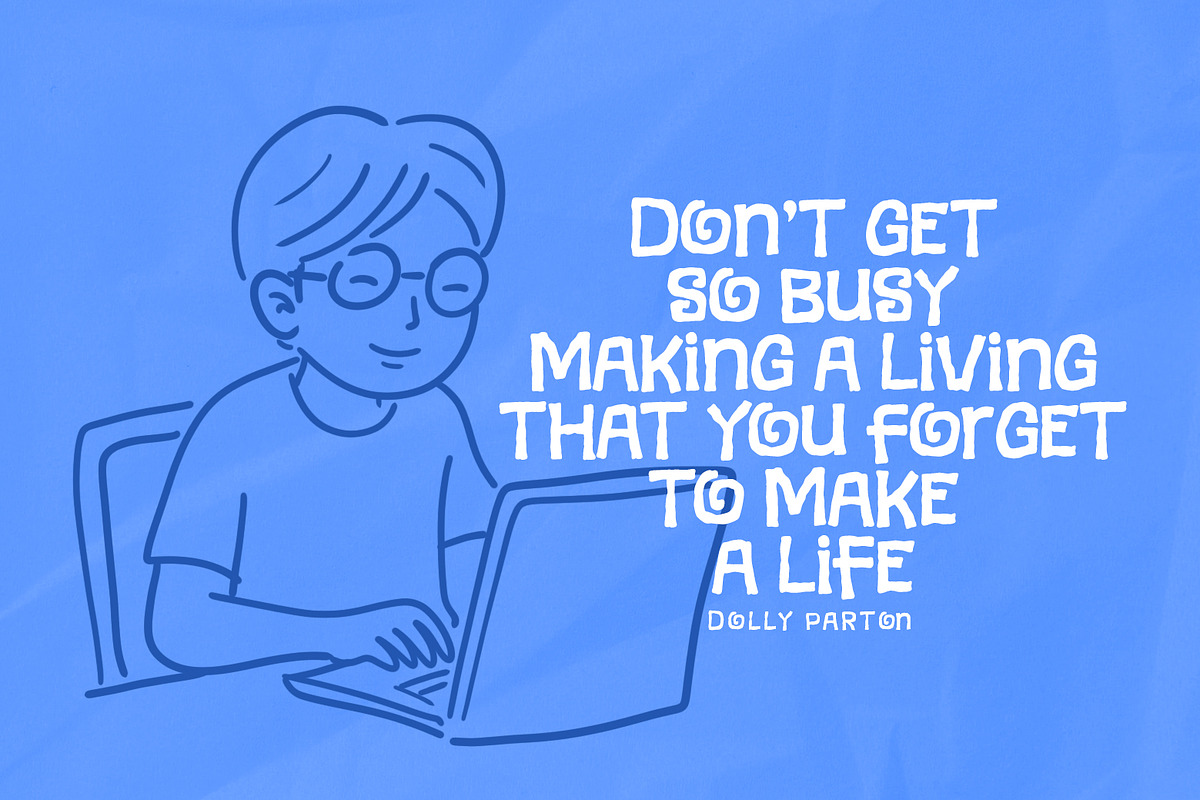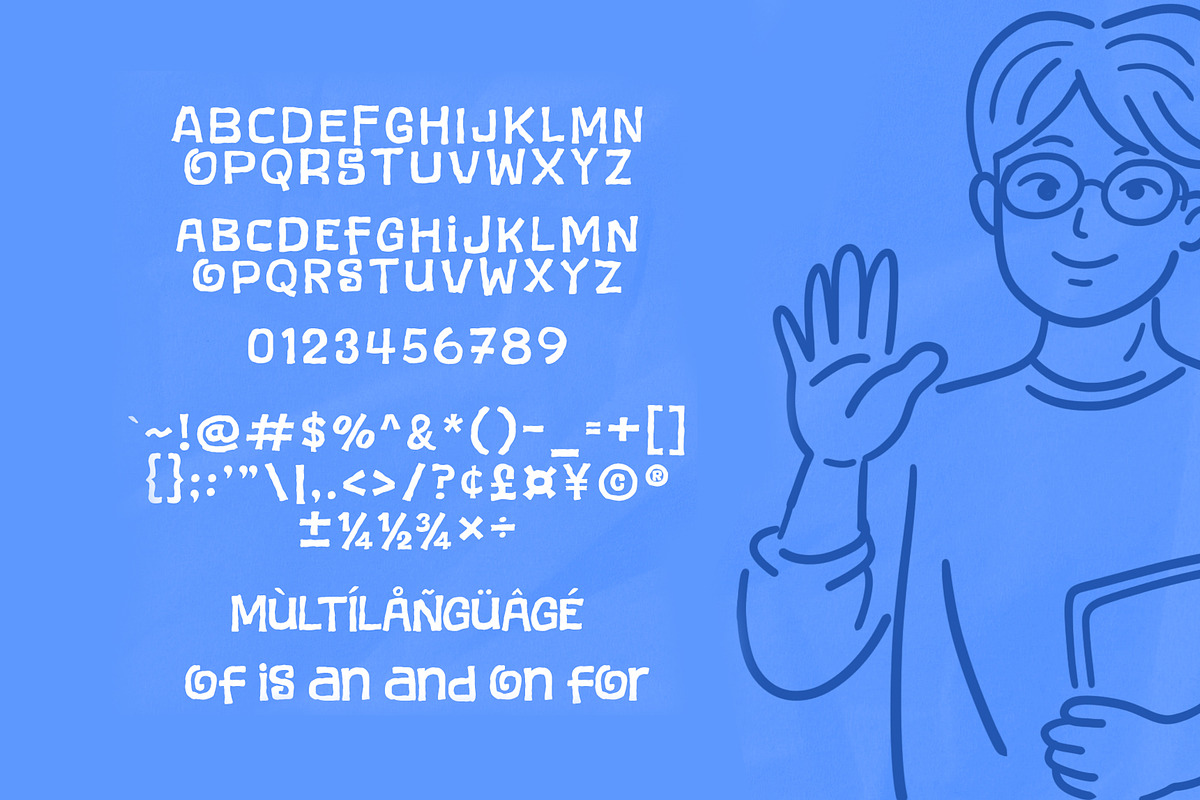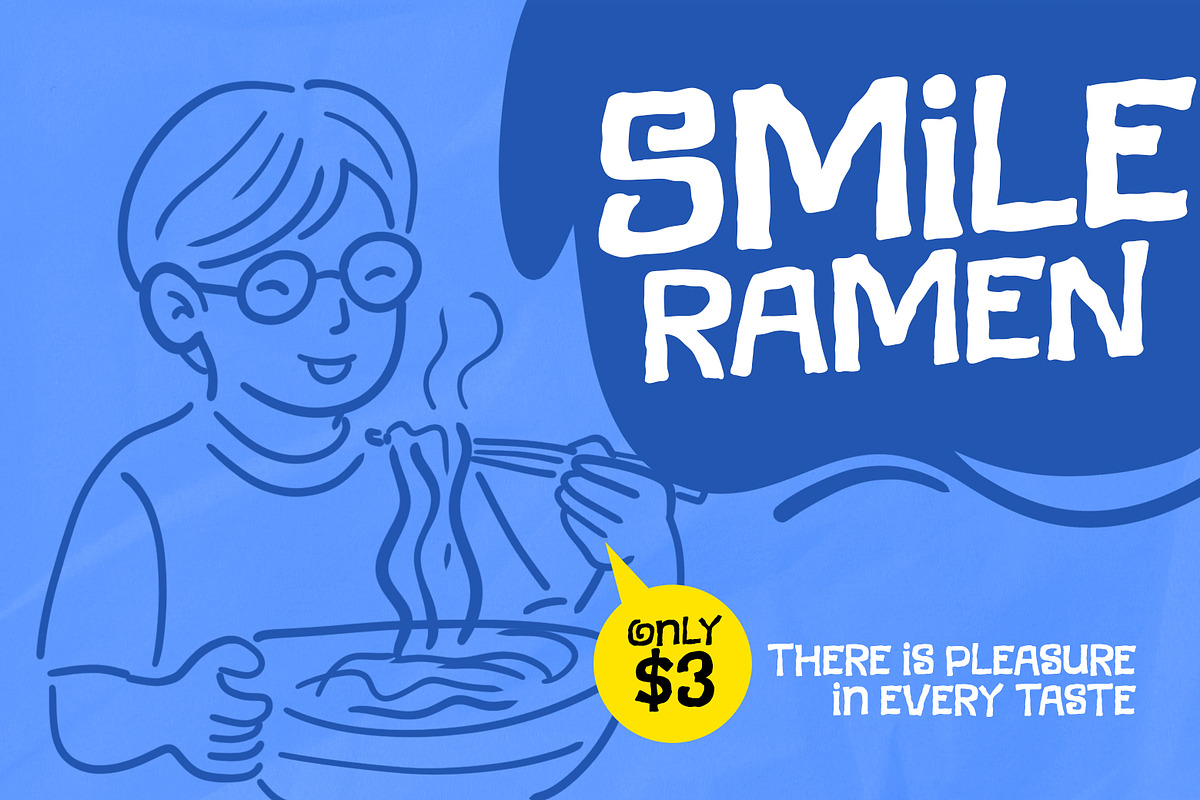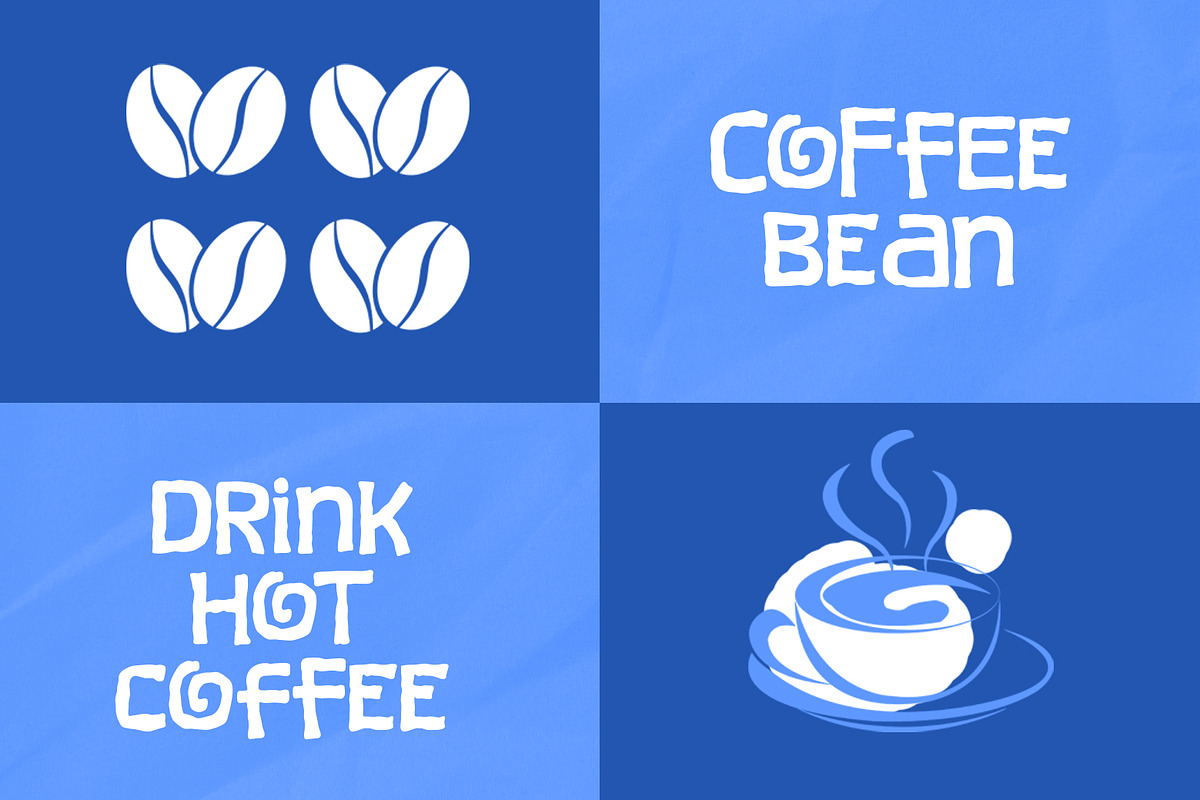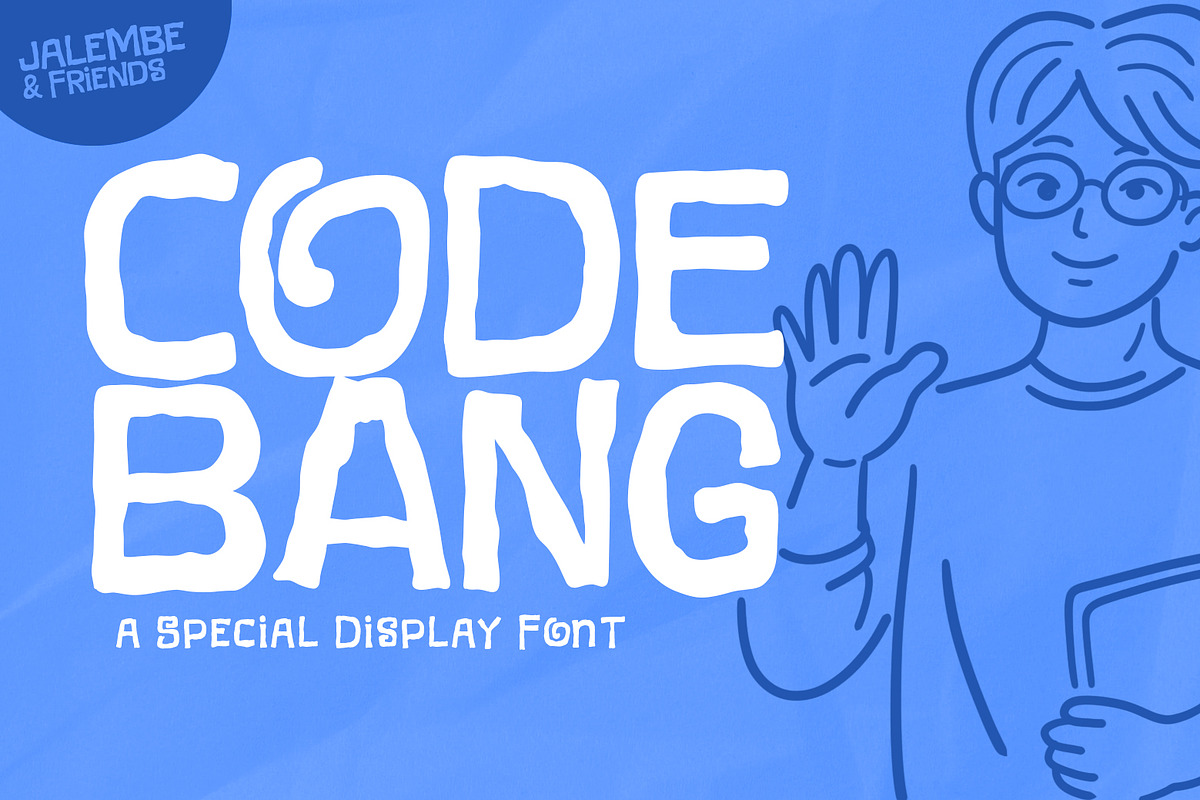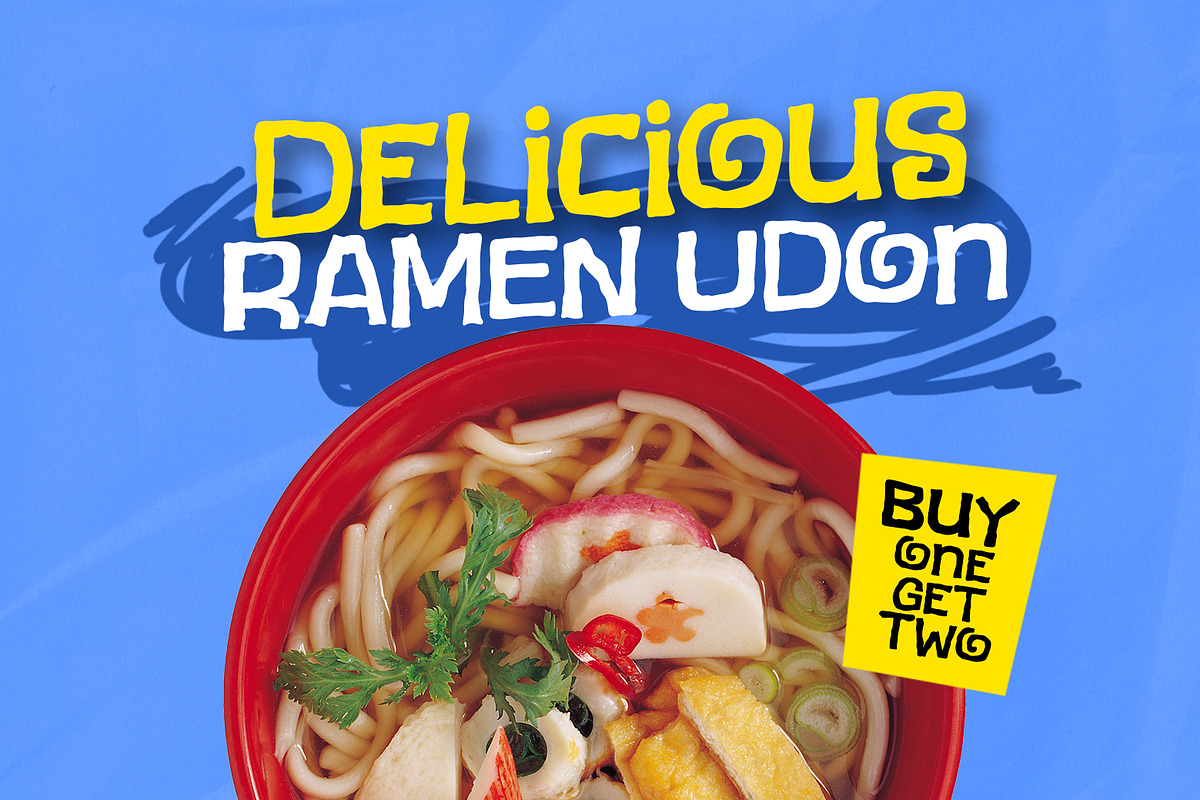
Code Bang
Introducing, Code Bang font a fun display typeface with cheerful theme for your fun project. Code Bang font suitable for logo, branding, greeting card, poster and any design that you create.